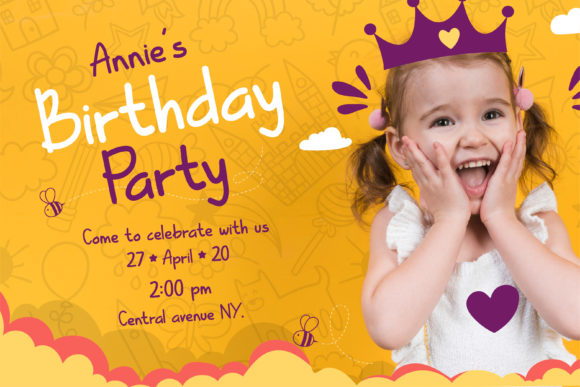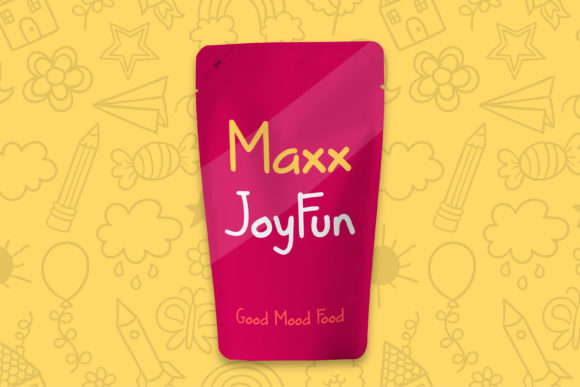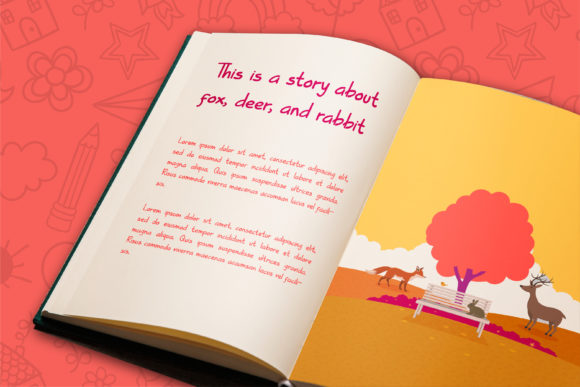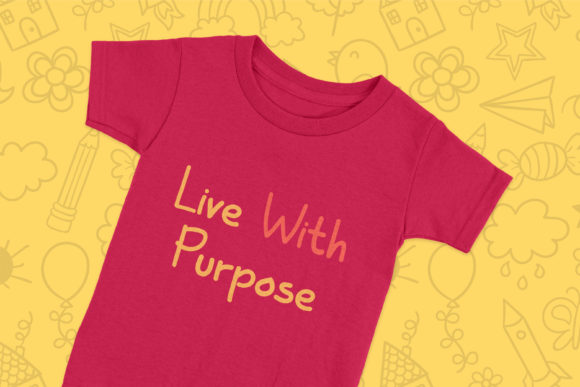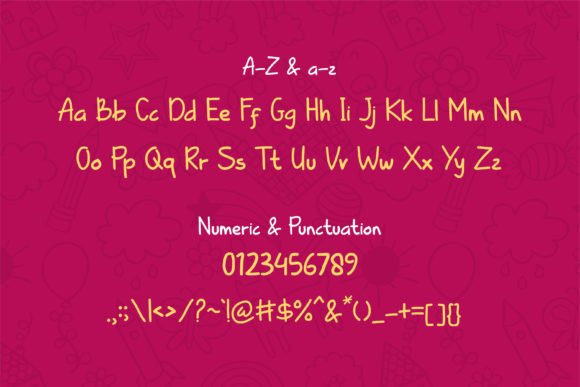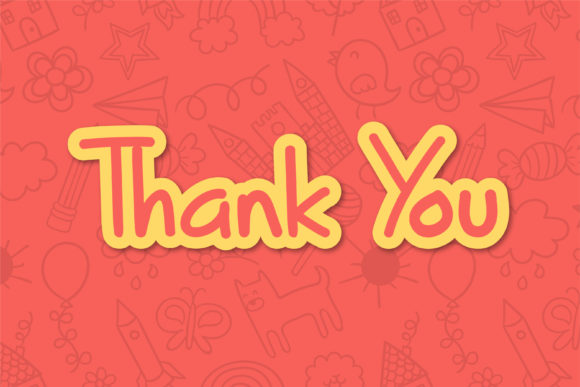
The Perfect Addition to Your Summer Projects
Have you ever found yourself scrolling through your design files, trying to find the perfect font to bring your project to life? We’ve all been there – staring at a blank page, searching for that one element that will make our creation stand out. And then, it hits you: the perfect font. In this case, it’s the Kiddle Summer Font.
This joyful and colorful display font is more than just a pretty face. Its friendly feel makes it incredibly versatile, fitting a wide range of contexts. Whether you’re designing a summer campaign, a kids’ book, or even a wedding invitation, the Kiddle Summer Font is the perfect addition to your creative ideas.
As a designer, you know the value of a well-chosen font. It can elevate your design, convey your message, and leave a lasting impression on your audience. The Kiddle Summer Font is no exception, offering a unique and playful touch to any project. So why not give it a try and see how it brings your summer projects to life?
Kiddle Summer Font Key Features
- Font Size: The font size is available in 5 different weights, ranging from Light (100) to Extra Bold (800), providing flexibility for designers to choose the perfect weight for their project.
- Resolution: The font is designed to be highly legible at various resolutions, including screen resolutions (72-96 DPI) and print resolutions (300 DPI).
- Unique Characteristics: Kiddle Summer Font features a playful, handwritten style with subtle imperfections, giving it a friendly and approachable feel that’s perfect for children’s books, greeting cards, and other projects that require a touch of whimsy.
- Customizability: Kiddle Summer Font includes a range of OpenType features, such as ligatures, swashes, and ornaments, allowing designers to add a personal touch to their work.
Kiddle Summer Font Review
Kiddle Summer Font is a playful and whimsical script font that’s perfect for summer vibes and casual designs. ✨ I love how it captures the feeling of a sunny day with its relaxed and carefree attitude. The font is highly customizable, making it easy to adjust the size, color, and style to fit your design needs.
Here are some of the things that work well with Kiddle Summer Font:
- ✨ Highly customizable
- ✨ Perfect for summer and casual designs
- ✨ Easy to read, even in smaller sizes
- ✨ Great for creating a fun and playful atmosphere
- ⚠️ Limited support for non-English languages
- ⚠️ Not suitable for formal or professional designs
- ⚠️ May not be as effective in large block of text
Overall, I think Kiddle Summer Font is a great choice for designers looking to add a touch of summer fun to their designs. While it may not be the best choice for every project, it’s a great option for casual designs, social media graphics, and marketing materials.
The Kiddle Summer Font is ideal for creating playful and whimsical designs, making it perfect for:
- Summer-themed invitations and party decorations.
- Children’s books and educational materials.
- Food and beverage branding, especially ice cream and candy shops.
To get the most out of the Kiddle Summer Font, experiment with different font sizes, colors, and combinations to create a unique and eye-catching design.
Alternatives to Kiddle Summer Font
Cream Soda is a playful, cursive font perfect for creating a whimsical and carefree atmosphere. It’s ideal for children’s book covers, summer-themed advertisements, and social media graphics. Compared to Kiddle Summer Font, Cream Soda has a more vintage feel and is better suited for projects that require a nostalgic touch.